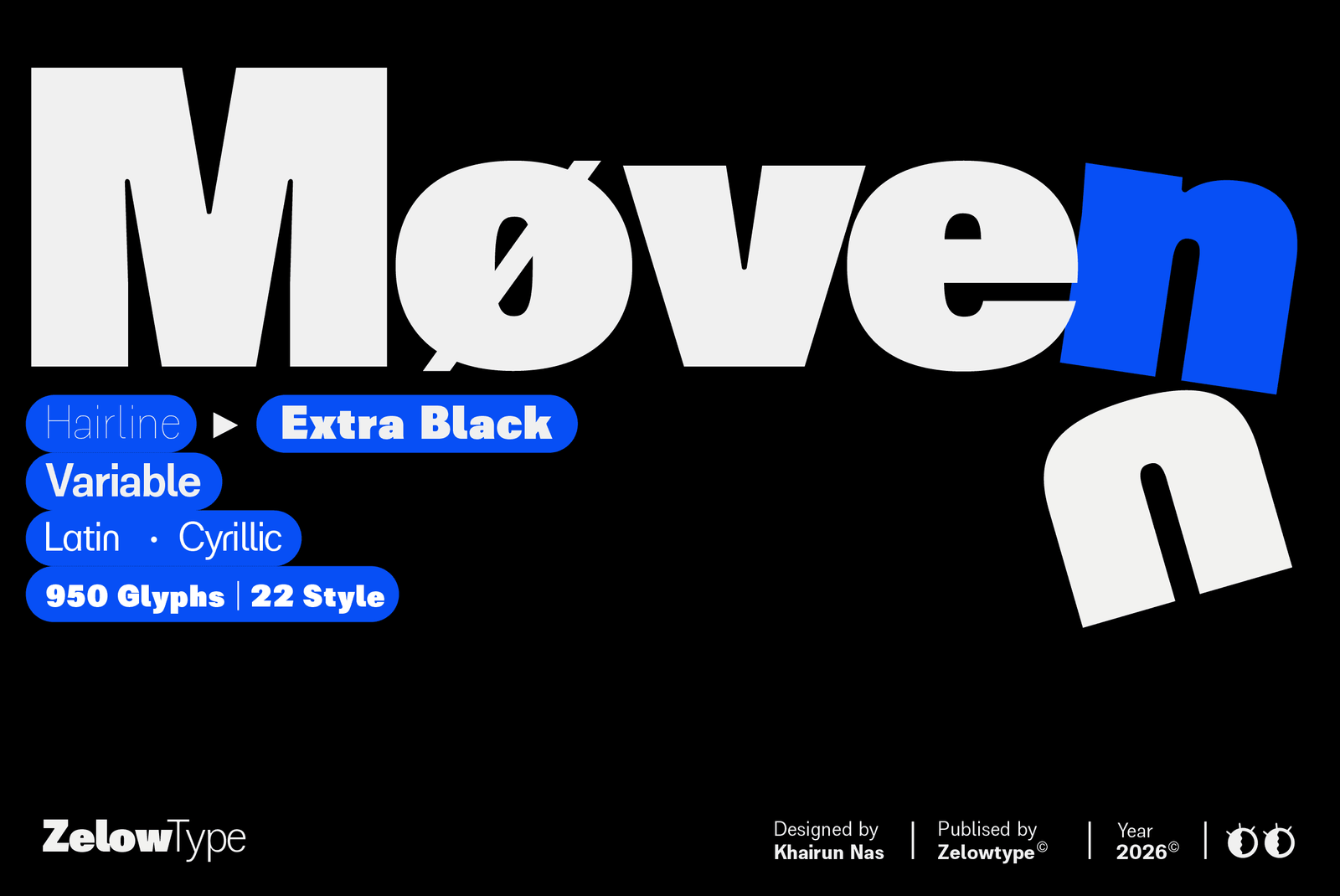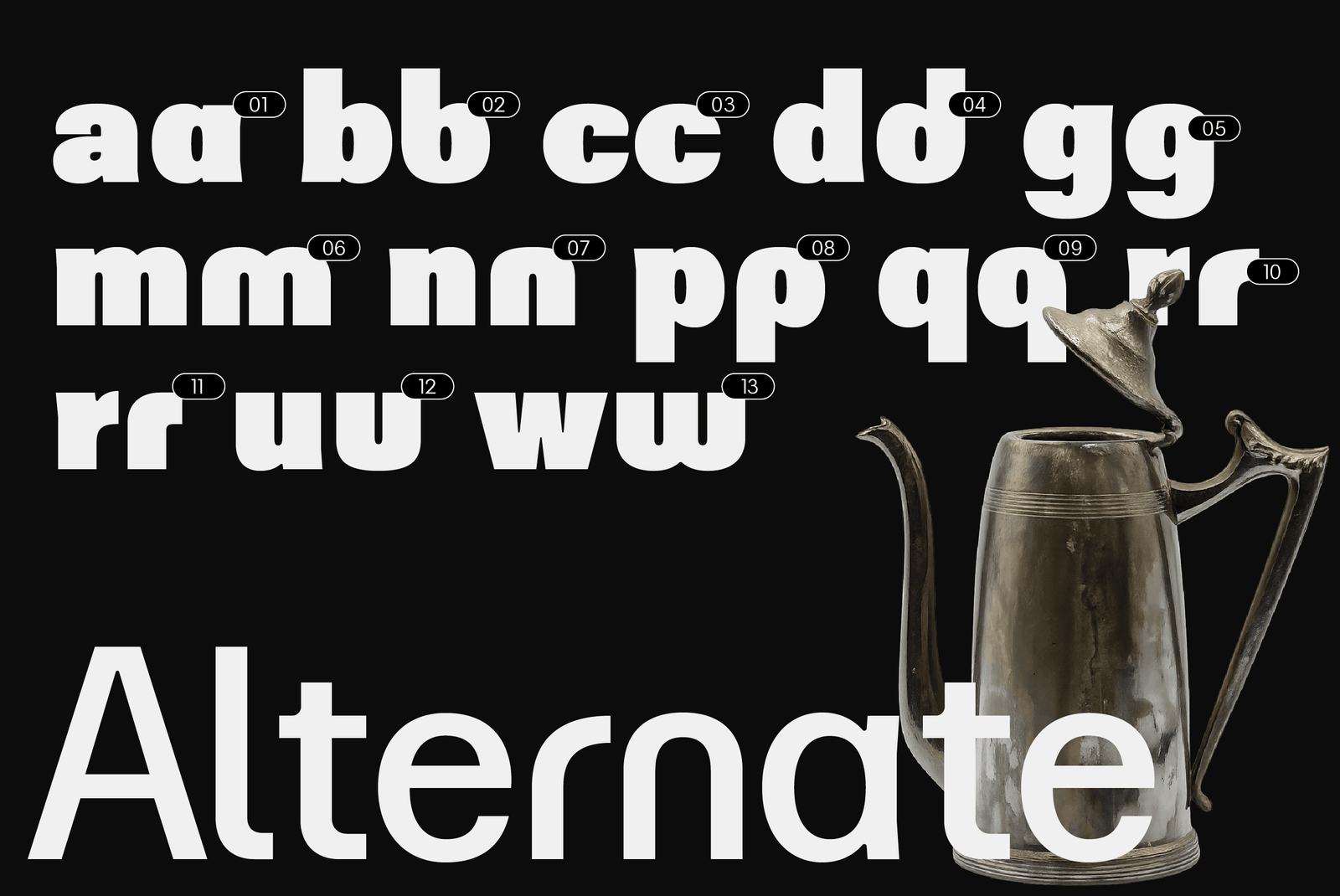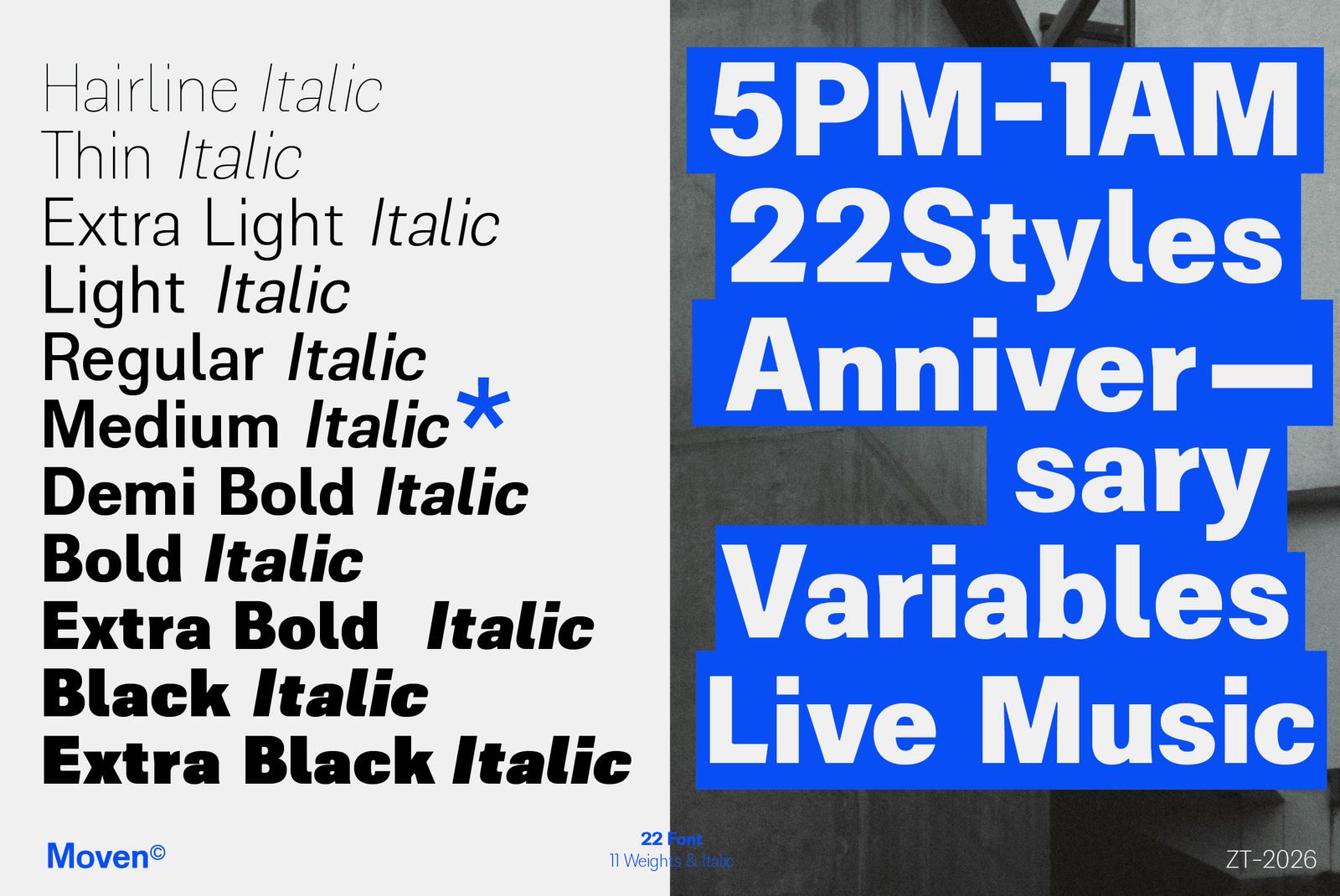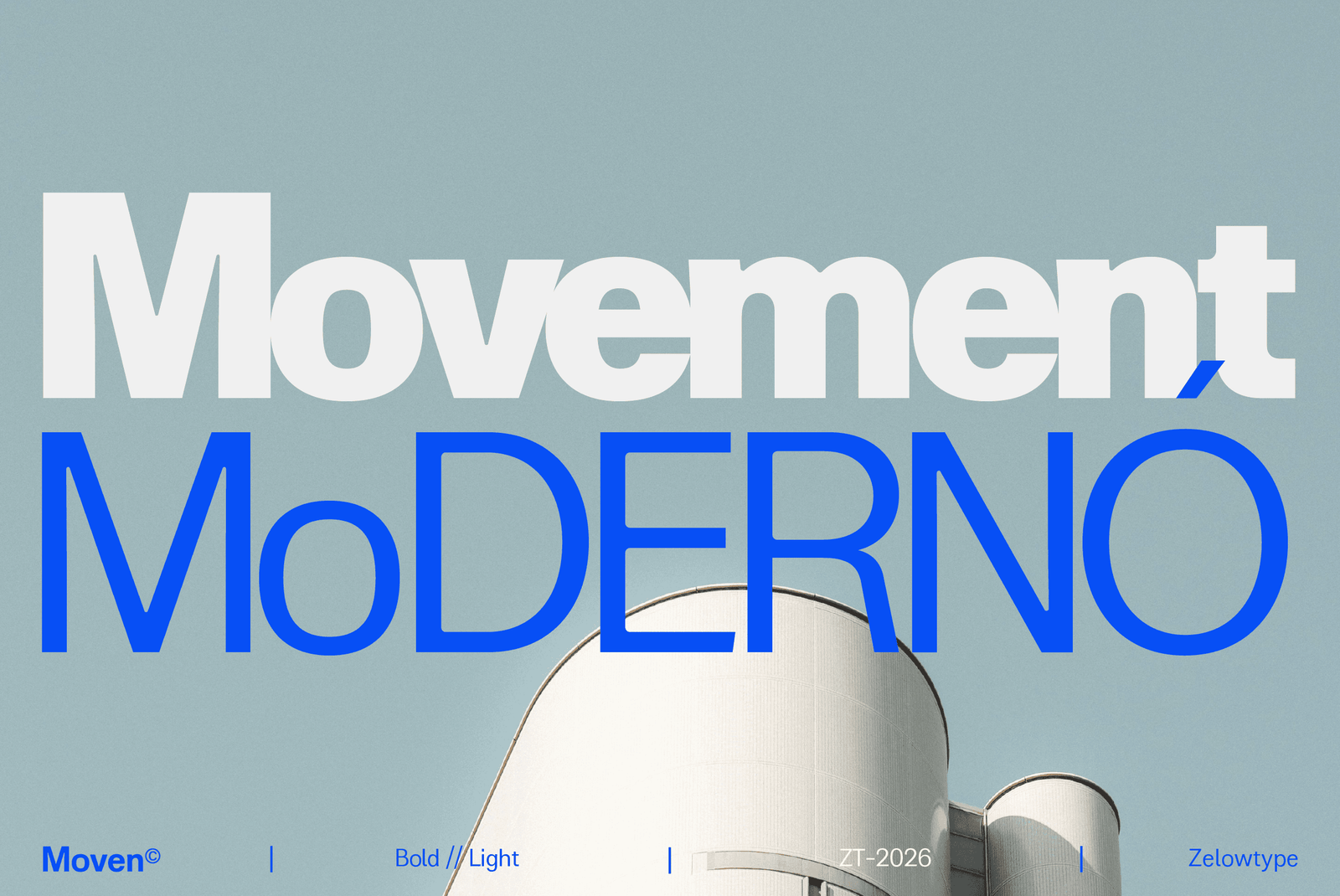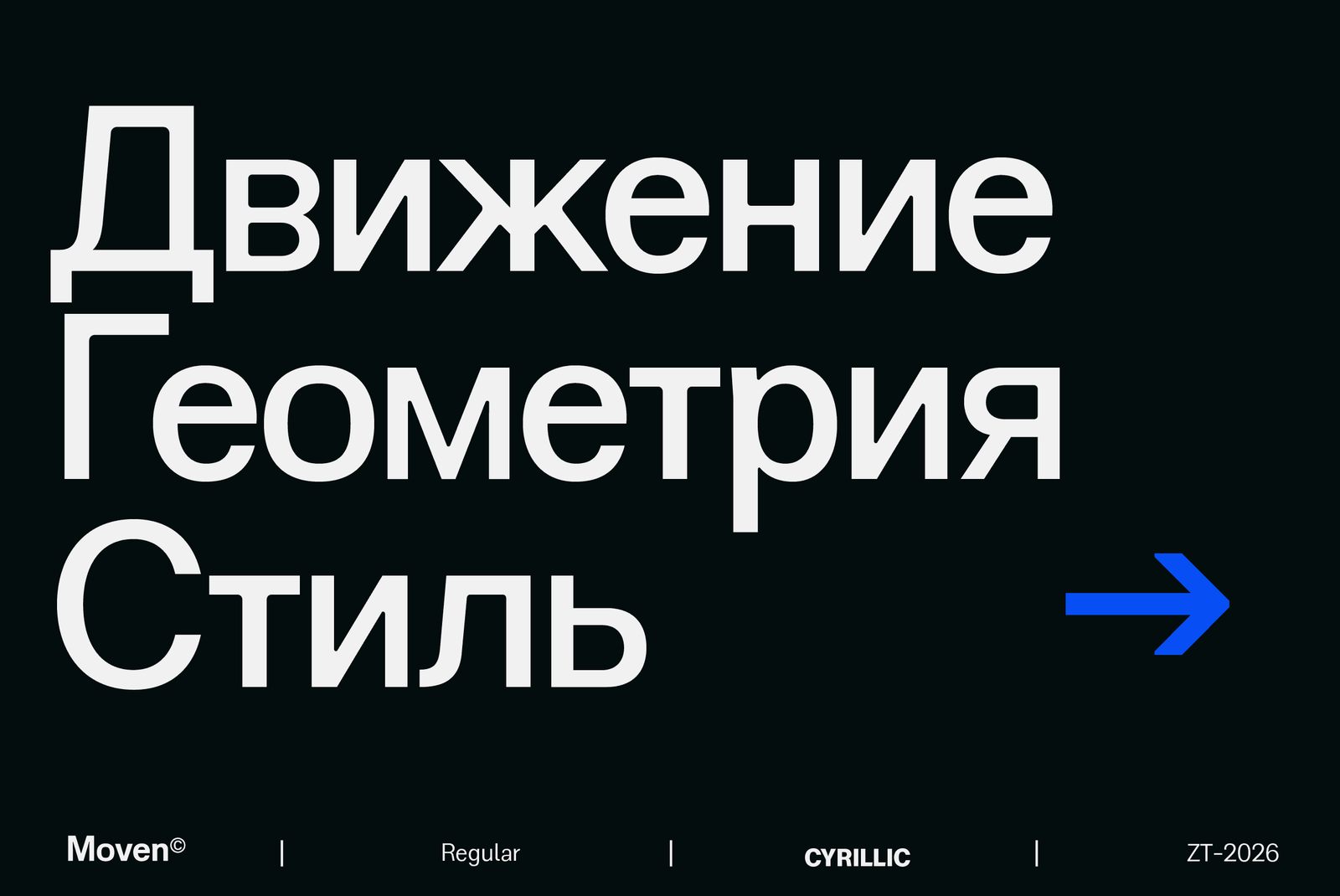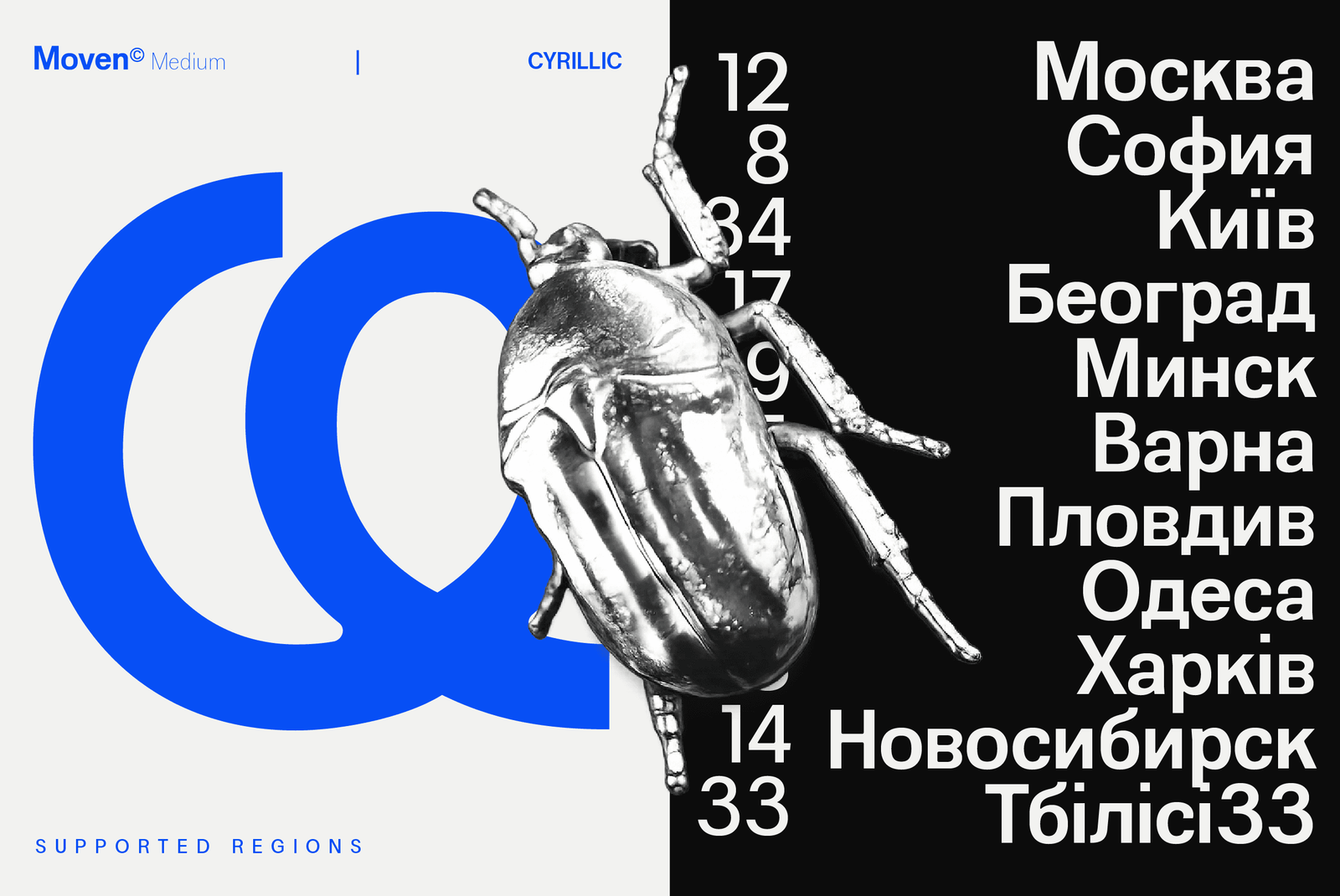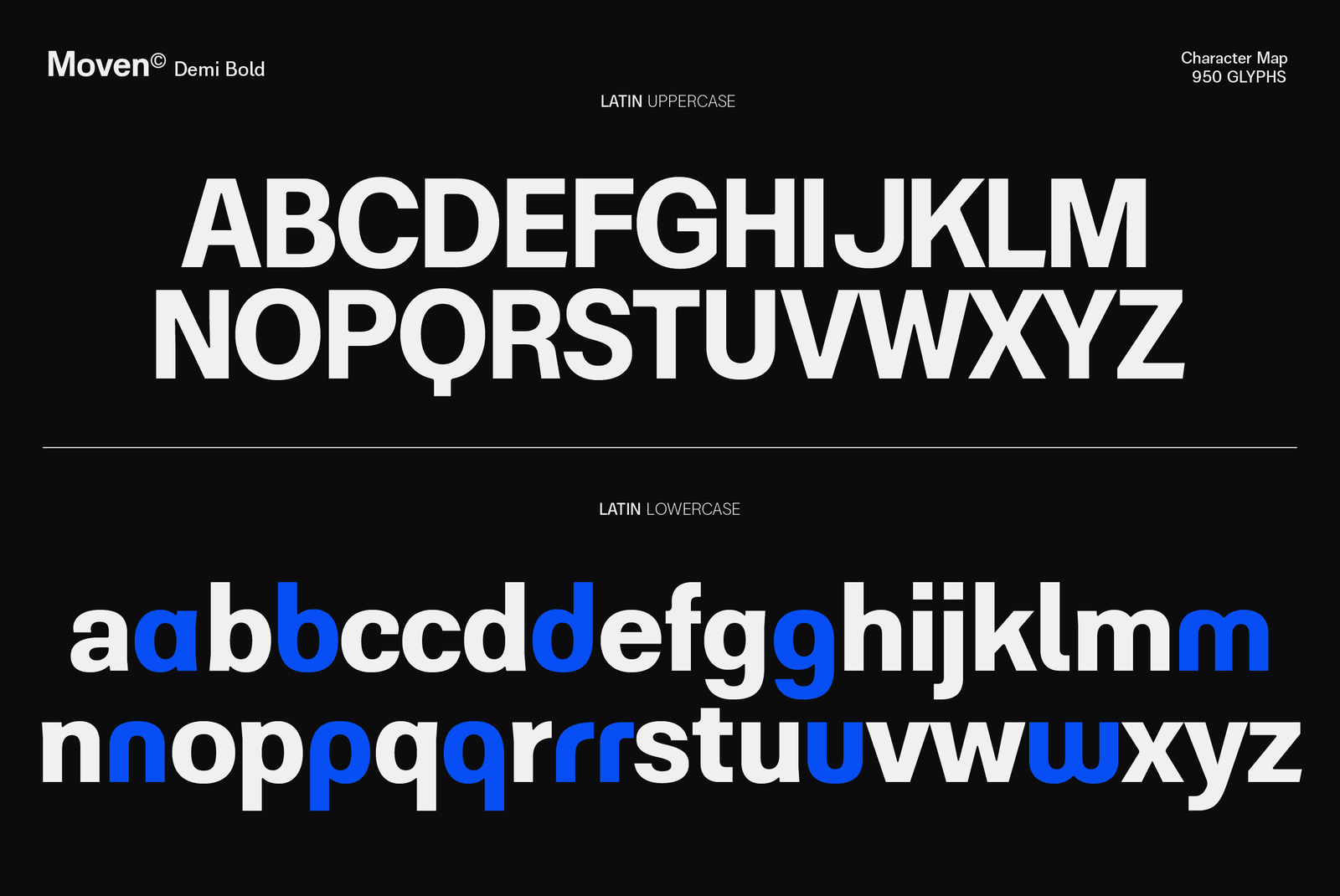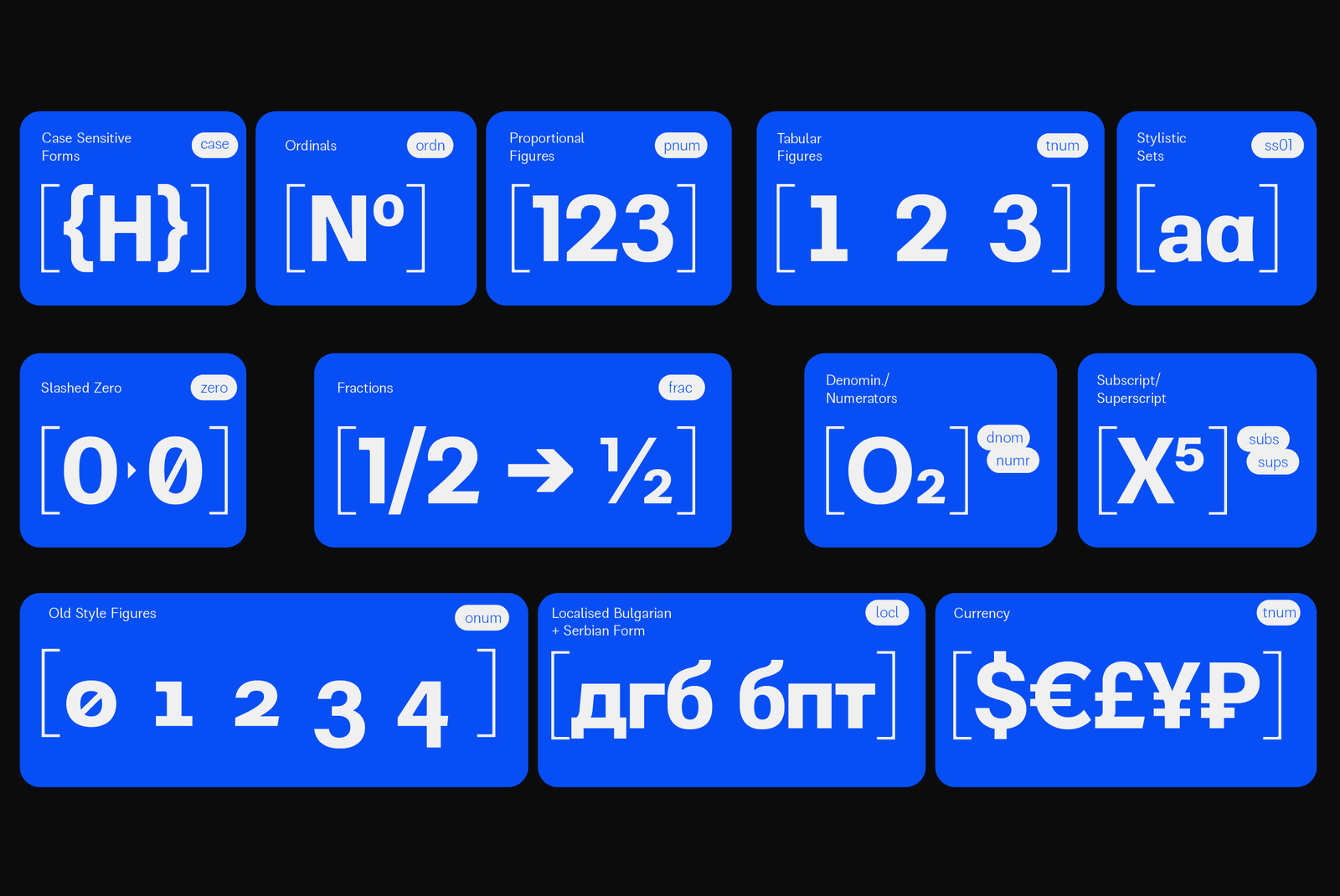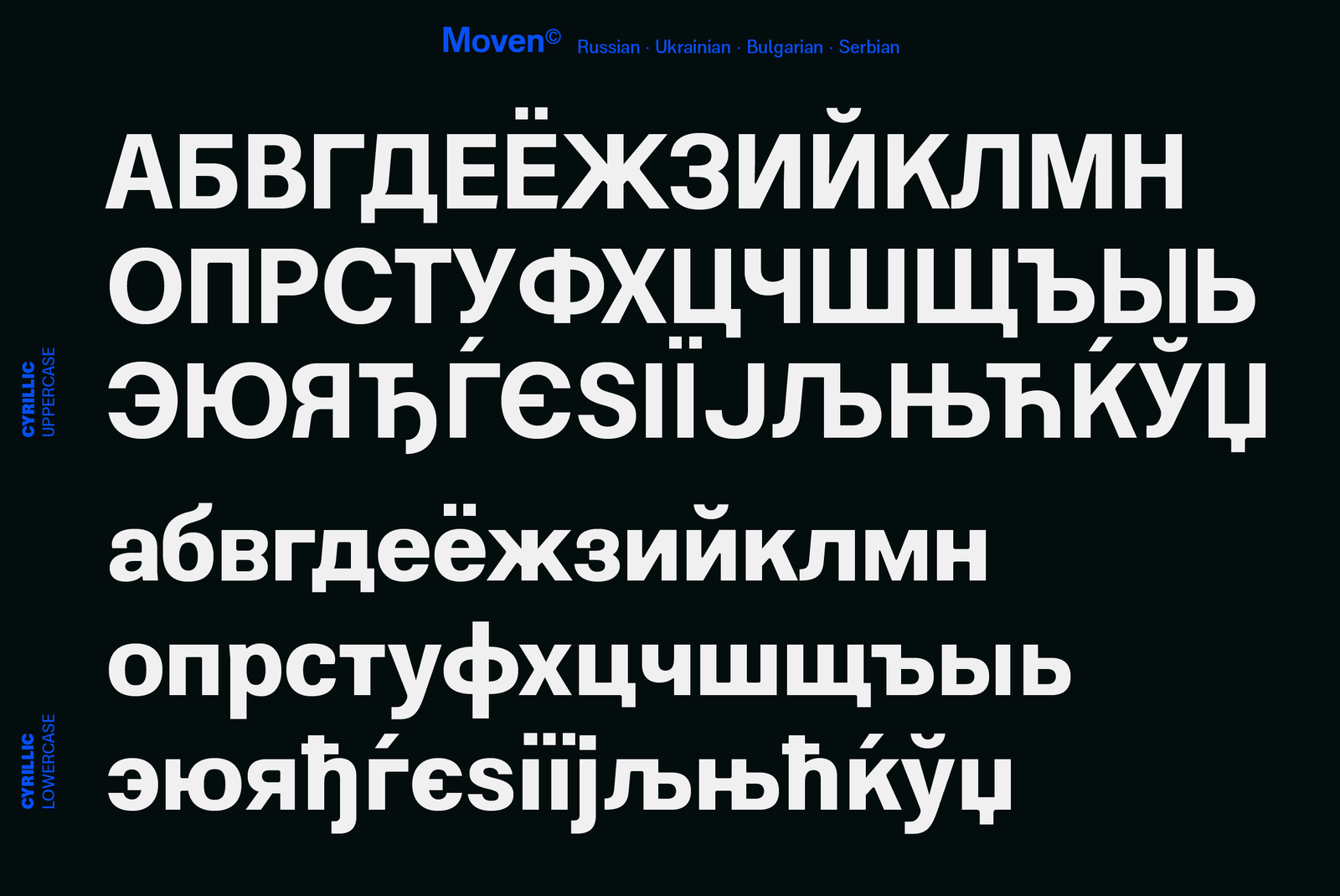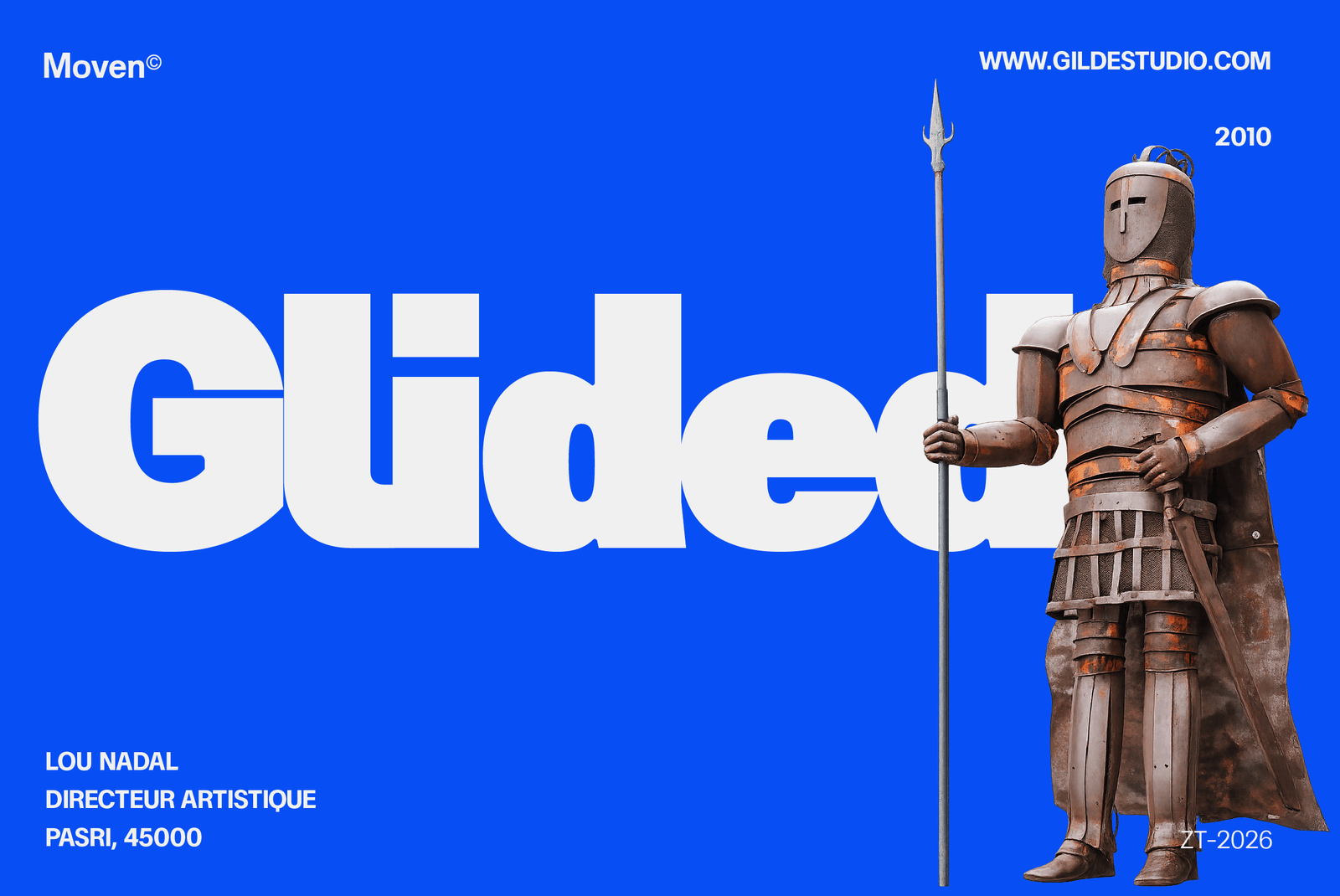
ZT Moven
Most sans serifs marketed as Cyrillic-ready simply overlay Russian letterforms onto a Latin skeleton. ZT Moven treats Bulgarian and Serbian as separate design problems, drawing each according to its own regional conventions — so text set in either language reads as native, not substituted. This is the detail most $19 fonts skip entirely, and the reason ZT Moven exists.
The same discipline carries through its weight range. Rather than redrawing each letter as it gains weight, ZT Moven holds one skeleton from Hairline to ExtraBlack. Counters stay proportionate at every step — open enough at the lightest end to avoid pinching shut, controlled enough at the heaviest to avoid clogging into black. Corners follow a selective treatment: sharp where strokes terminate, rounded through the counters, giving the geometry a precise, technical character rather than the soft uniformity of a generic rounded sans.
This restraint is what makes ZT Moven functional across contexts that most display-first geometric sans struggle with — dense body copy at text sizes, tight brand systems that need to hold up across a dozen touchpoints, and multilingual products where switching typefaces between scripts breaks visual continuity. It is built to disappear into good design rather than announce itself.
ZT Moven is designed by Khairunnas at Zelowtype, an independent type foundry based in Tapaktuan, Aceh, Indonesia — five years into building fonts that treat every script they claim to support with the same level of care.
ZT Moven is a geometric sans-serif built on precision — every curve, counter, and terminal calculated to hold its structure from the lightest Hairline to the heaviest ExtraBlack. Where many geometric sans typefaces soften or drift at the extremes, Moven stays consistent across the full range, weight after weight, size after size. Its twenty-two styles move as one continuous system: eleven weights in Roman, matched stroke for stroke by eleven in Italic, built on a single variable axis from wt 50 to 950. Beyond Latin Extended, Moven extends into Cyrillic with dedicated localised forms for Bulgarian and Serbian — precision that carries across alphabets, not just across weights.
Every one of Moven's 950 glyphs was drawn to hold the same geometric logic, whether it sits at Hairline for a delicate editorial headline or ExtraBlack for a poster that needs to be read from across the room. The variable axis moves smoothly between them, so a single file can carry an entire identity system — from the lightest caption to the boldest cover line — without ever breaking its underlying structure. Moven is built for designers who need that range in one place: branding systems, editorial layouts, and interfaces that shift weight depending on context, but should never look like they belong to two different typefaces.
Moven was also built to work beyond a single alphabet. Its Cyrillic set isn't a mechanical transliteration of the Latin forms — it includes dedicated localised forms for Bulgarian and Serbian, so text reads naturally to native readers rather than looking borrowed. That makes Moven a practical choice for brands and publications working across Latin and Cyrillic markets at once, without needing a second typeface to carry the Cyrillic half of the system. Combined with a full set of OpenType features, Moven is built to hold up in real, multilingual, production use — not just in a specimen.